Instead of scrolling through endless generic font lists, we’ve rounded up 5 standout fonts from the ArtisanFont collection — each with a distinct personality, unique character details, and real-world use cases. Let’s dive in.
1. Palmila — Playful Summer Display Font with Tropical Alternates
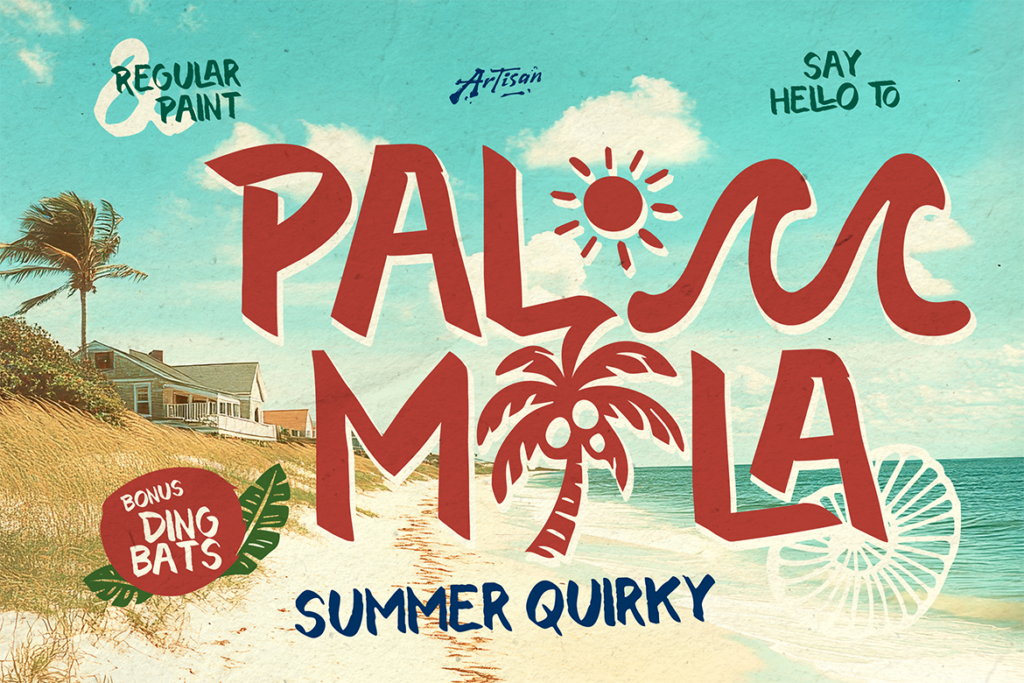
Looking for something fun, warm, and full of personality? Palmila is a playful summer display font with a bold brush style and quirky hand-painted feel. What makes it really special are its tropical stylistic alternates — several characters transform into shapes like coconuts, palm trees, and sun elements, instantly giving your typography a sunny, beach-ready vibe.
Best for: Summer branding, beach & tropical posters, packaging, t-shirt designs, fun social media graphics Pairs well with: A simple, clean sans-serif for body text, letting Palmila’s playful alternates shine in headlines or logos.
2. Velmora — Modern Sans-Serif for Corporate & Logo Design
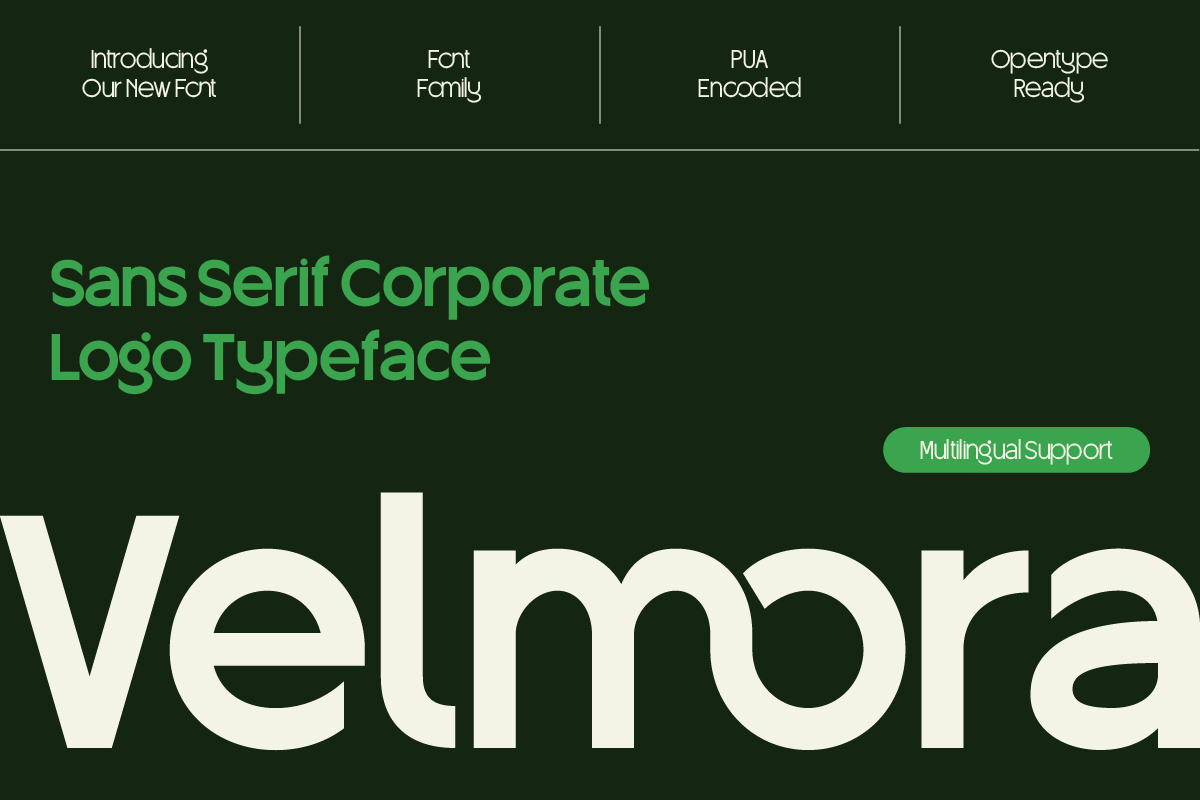
If your project needs to feel confident, clean, and trustworthy, Velmora is a fantastic pick. This modern sans-serif comes in three weights (Thin, Regular, and Bold), with smooth curves and a timeless geometric touch — perfect for logos, corporate identity, websites, and editorial layouts.
Best for: Logo design, corporate branding, business cards, website & UI design Pairs well with: Itself, thanks to its multiple weights — use Bold for headings and Regular or Thin for body text and supporting details.
3. Broteli — Vintage Circus Display Font with Bold Character
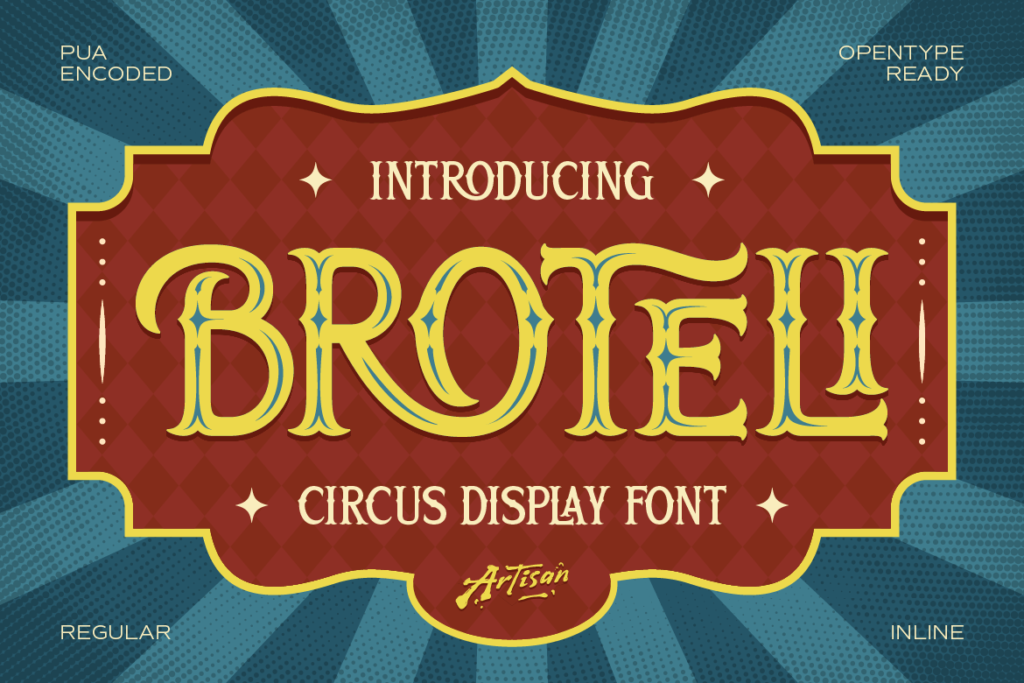
For projects that need a nostalgic, theatrical vibe, Broteli delivers in a big way. Inspired by classic carnival posters and old-school showtime aesthetics, this bold vintage display font comes with decorative serif styling, playful curves, regular and inline styles, plus stylish alternates and ligatures for extra flair.
Best for: Vintage & retro posters, branding, packaging, editorial headlines, event promotions Pairs well with: A clean, minimal sans-serif for body text — letting Broteli’s theatrical character take center stage in headlines and titles.
4. Moonscythe — Experimental Gothic Font with Celestial Alternates
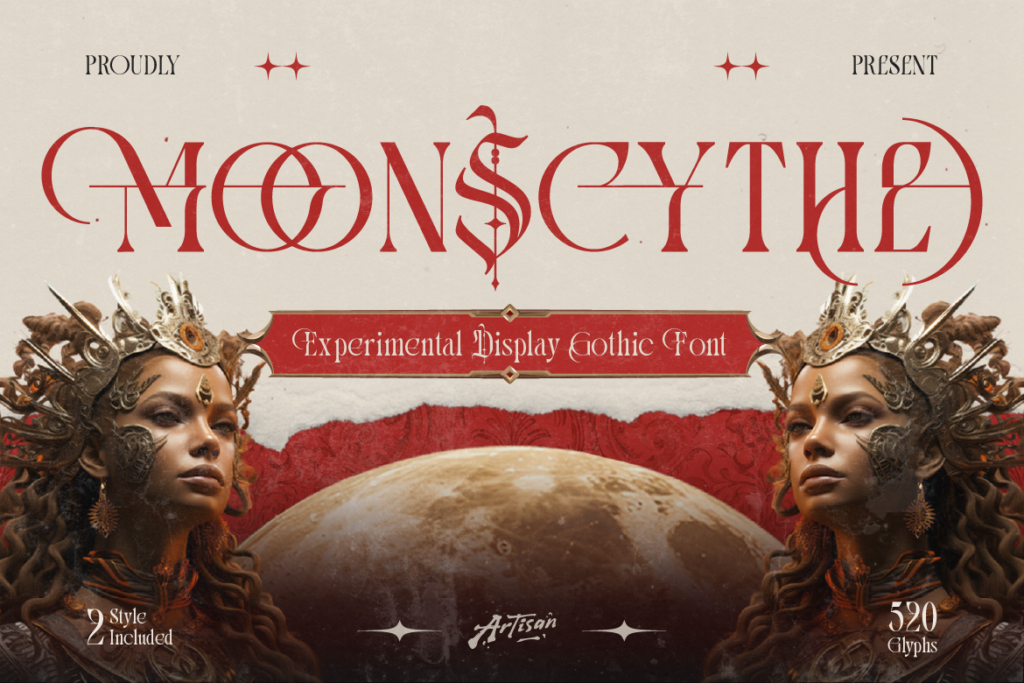
For dark, dramatic, or fantasy-themed projects, Moonscythe brings a unique edge. This display gothic font combines sharp serif structure with crescent moon-shaped alternates, creating a striking balance between elegance and danger. It comes in Regular and Slant styles, perfect for mixing standard forms with its signature “moon blade” alternates.
Best for: Dark fantasy branding, gothic logos, album covers, movie titles, occult & celestial projects Pairs well with: A simple, neutral sans-serif for supporting text, keeping the focus on Moonscythe’s dramatic character for titles and key visuals.
5. Pixerif — Retro 8-Bit Pixel Font for Games & Fun Projects
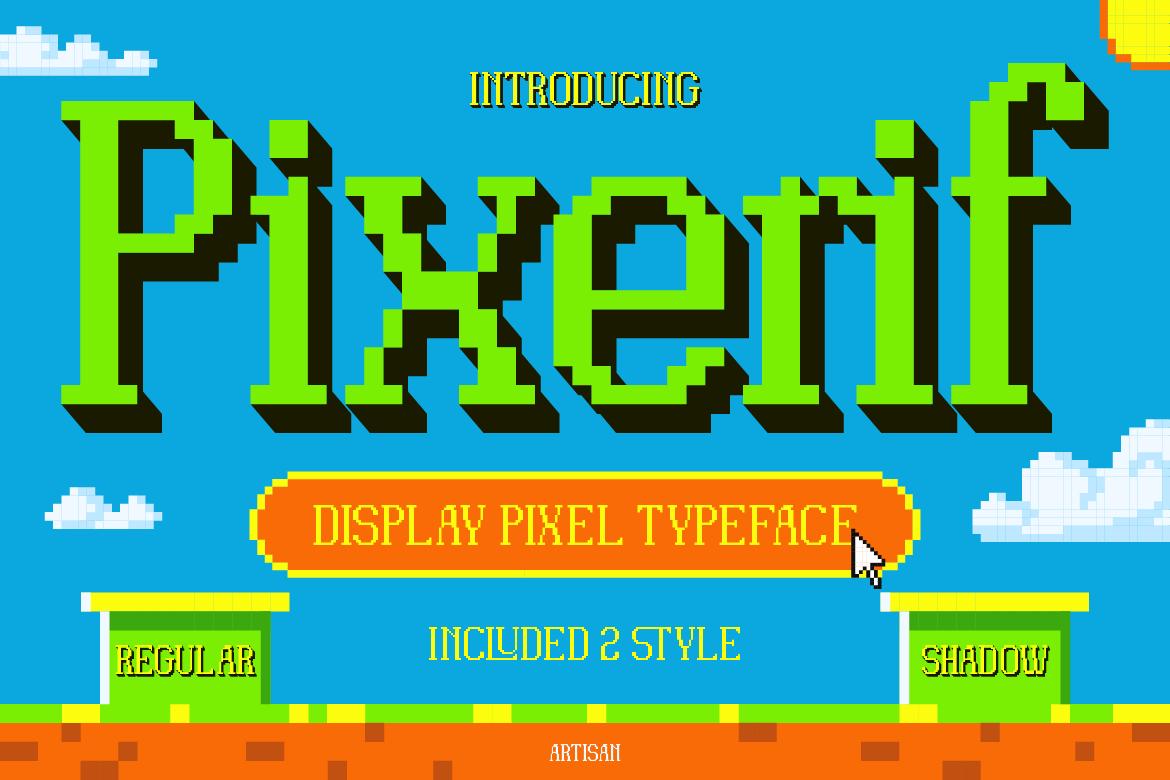
Bringing some nostalgic gaming energy to the list, Pixerif is inspired by classic 8-bit game fonts — bright, blocky, and full of fun. It comes in two styles: Regular for clear messaging, and Shadow for making text pop like a logo. With OpenType ligature support, it’s both functional and playful.
Best for: Video games, pixel art projects, retro arcade designs, stickers, merchandise, fun social content Pairs well with: A clean, modern sans-serif for any accompanying text — Pixerif works best when used sparingly for titles, logos, or accents.
Which Font Should You Try First?
Not sure where to start? Here’s a quick cheat sheet based on what you’re working on:
- Going for a fun, tropical vibe? → Start with Palmila
- Need a clean, professional logo font? → Velmora is your best bet
- Building a vintage/retro brand? → Broteli brings the nostalgia
- Working on something dark or dramatic? → Moonscythe sets the mood
- Designing for games or pixel art? → Pixerif fits right in
Mid-year is a great time to shake up your design toolkit, and these five fonts from ArtisanFont each bring something different to the table — from playful tropical displays to clean corporate sans-serifs, and even bold gothic and pixel-art styles for more experimental projects.